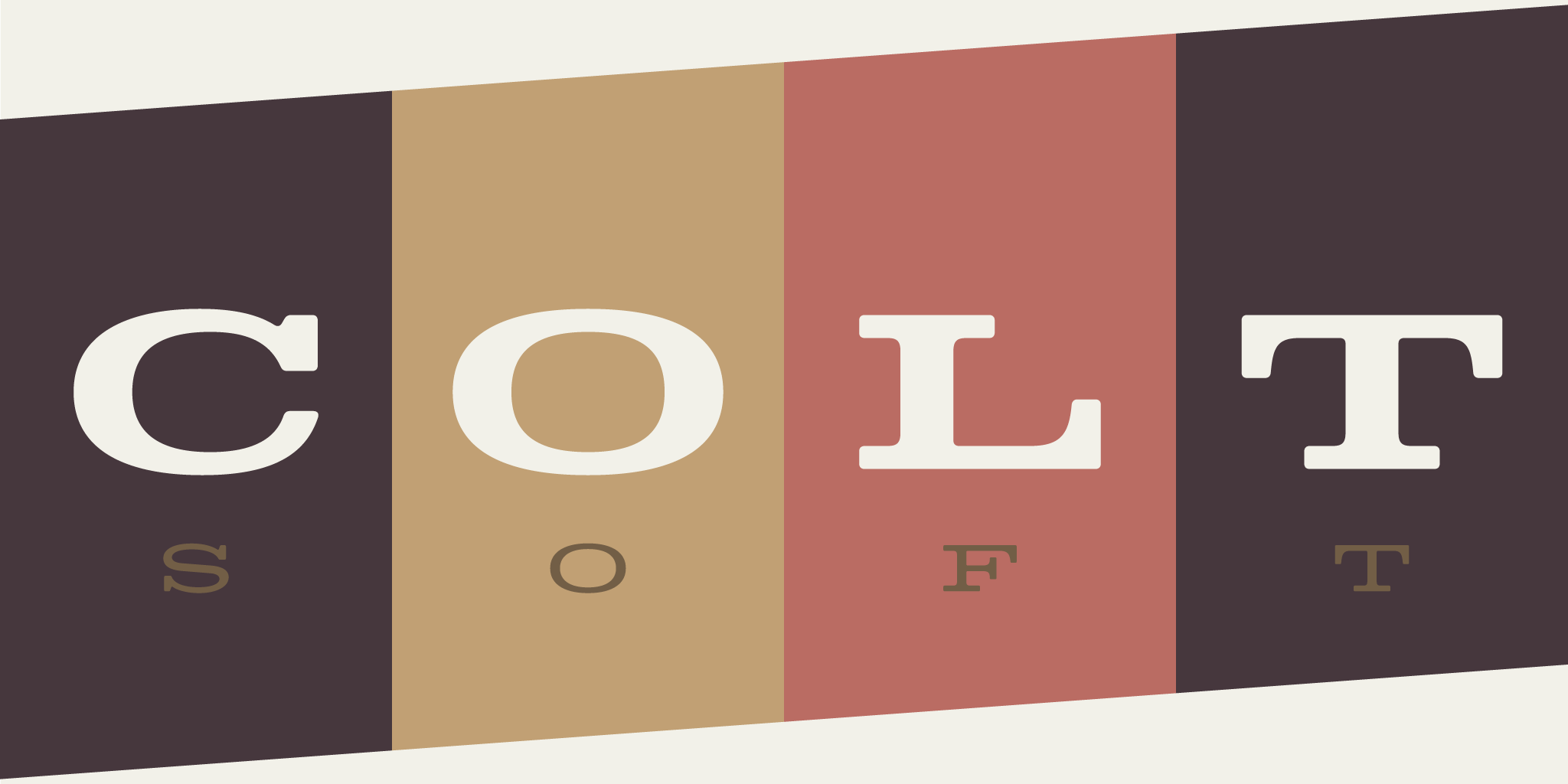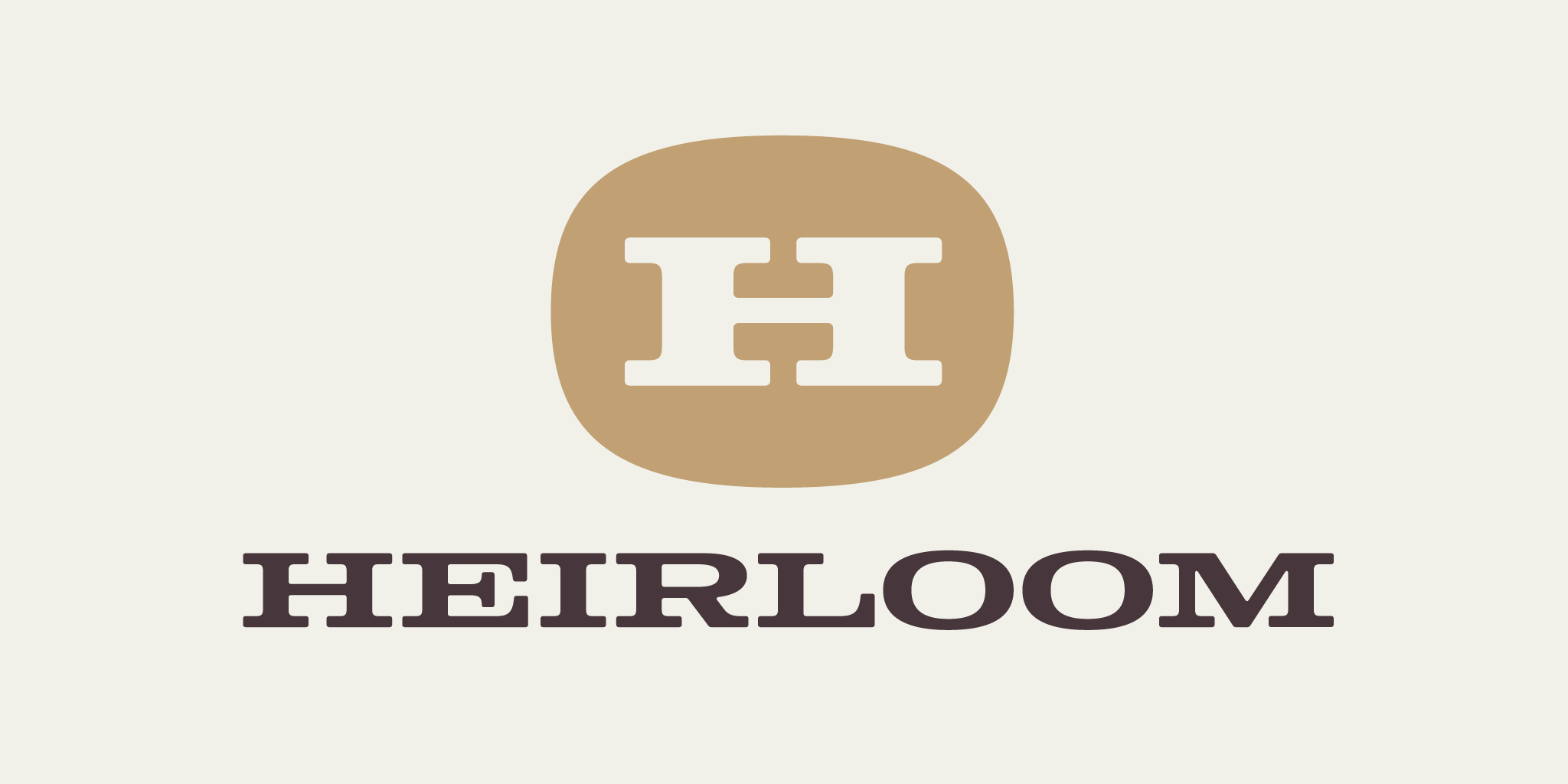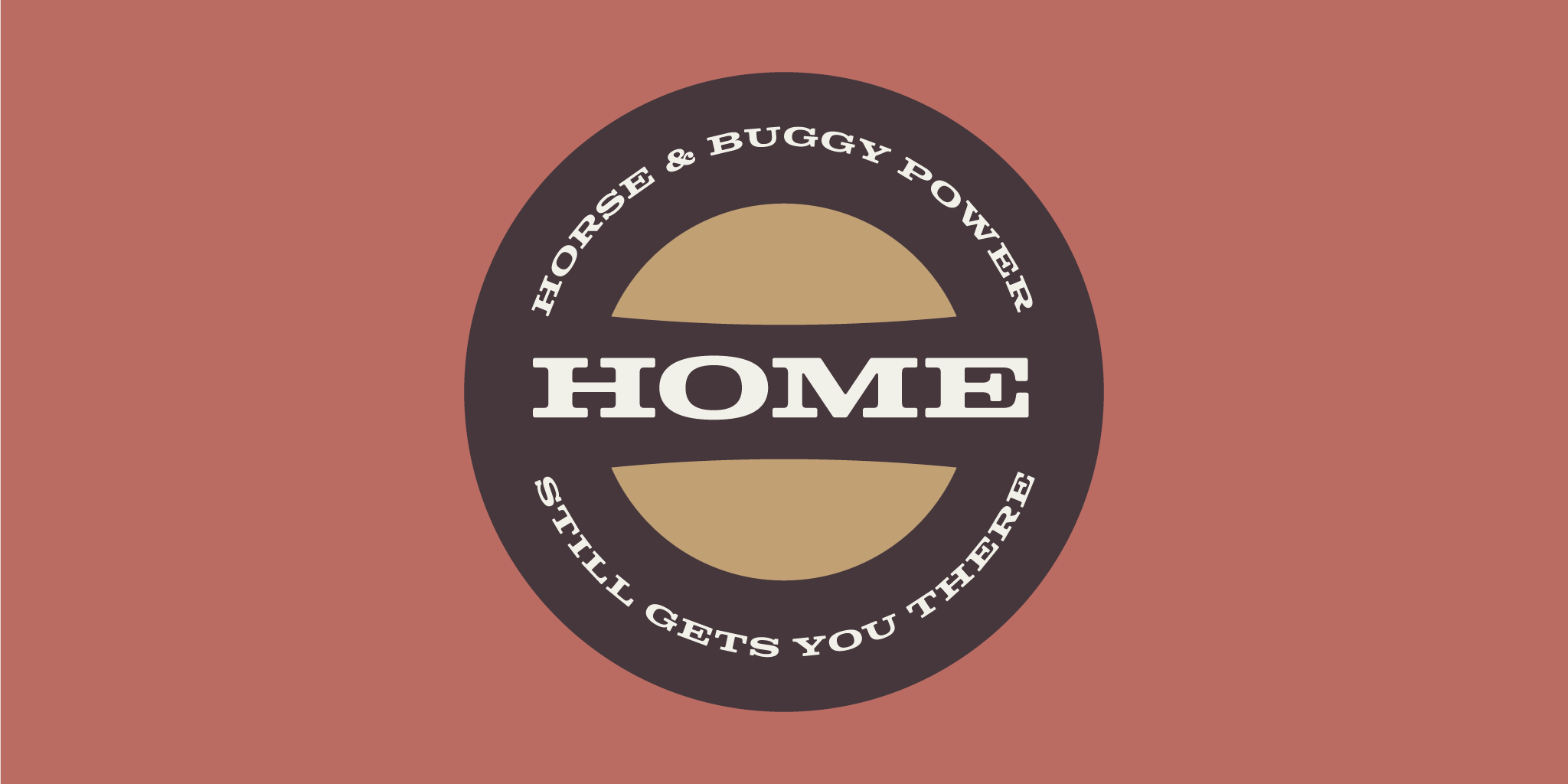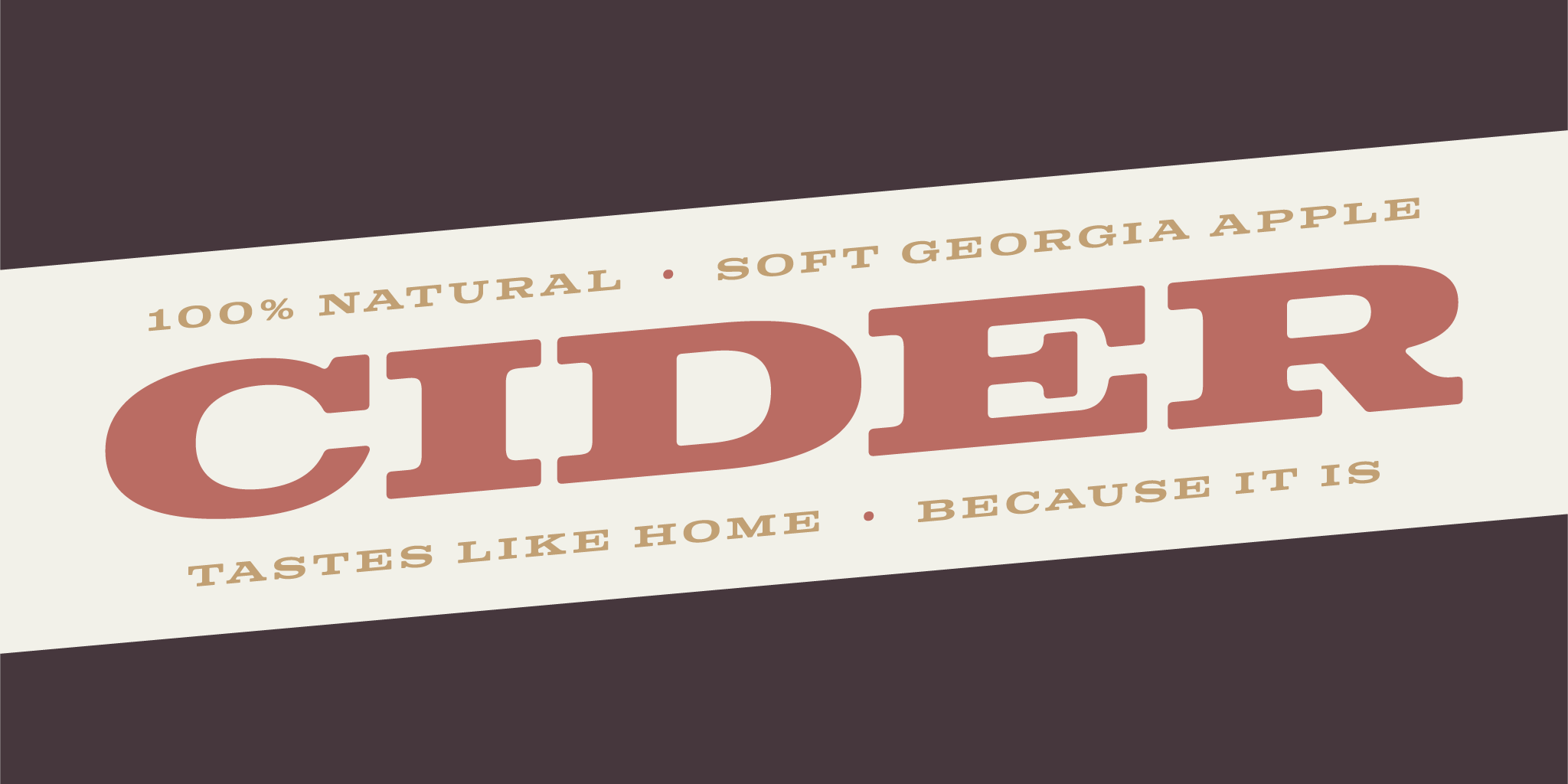
Colt Soft
Colt Soft brings a touch of warmth and nostalgia to its bold, internal structures.
Showing the softer side of its twin, Colt, these wide letterforms arose out of a love for type found on vehicles made in the sixties. As the typeface took shape, the characters utilized the Clarendon style with attention to its ball terminals to anchor the design. The result yields a new take on the extended slab-serif genre in an array of 6 weights.